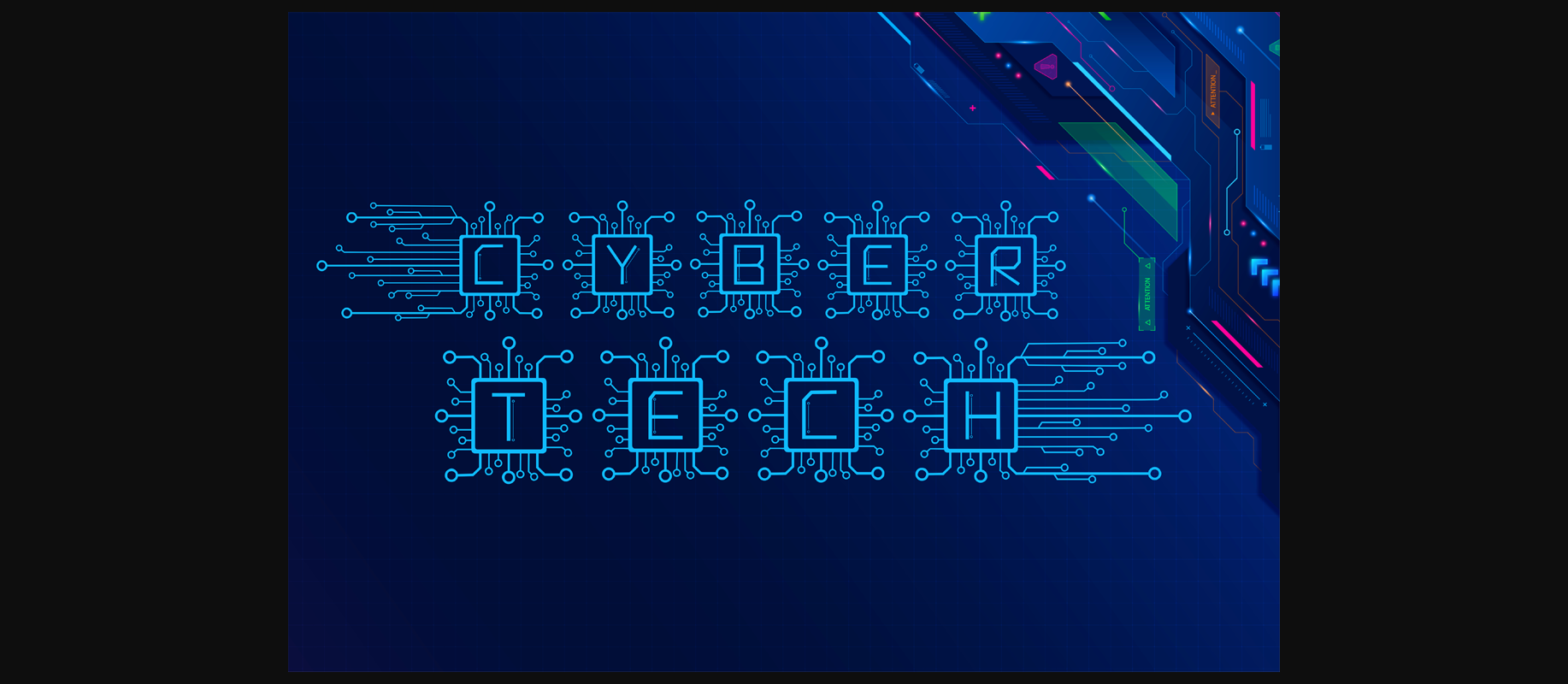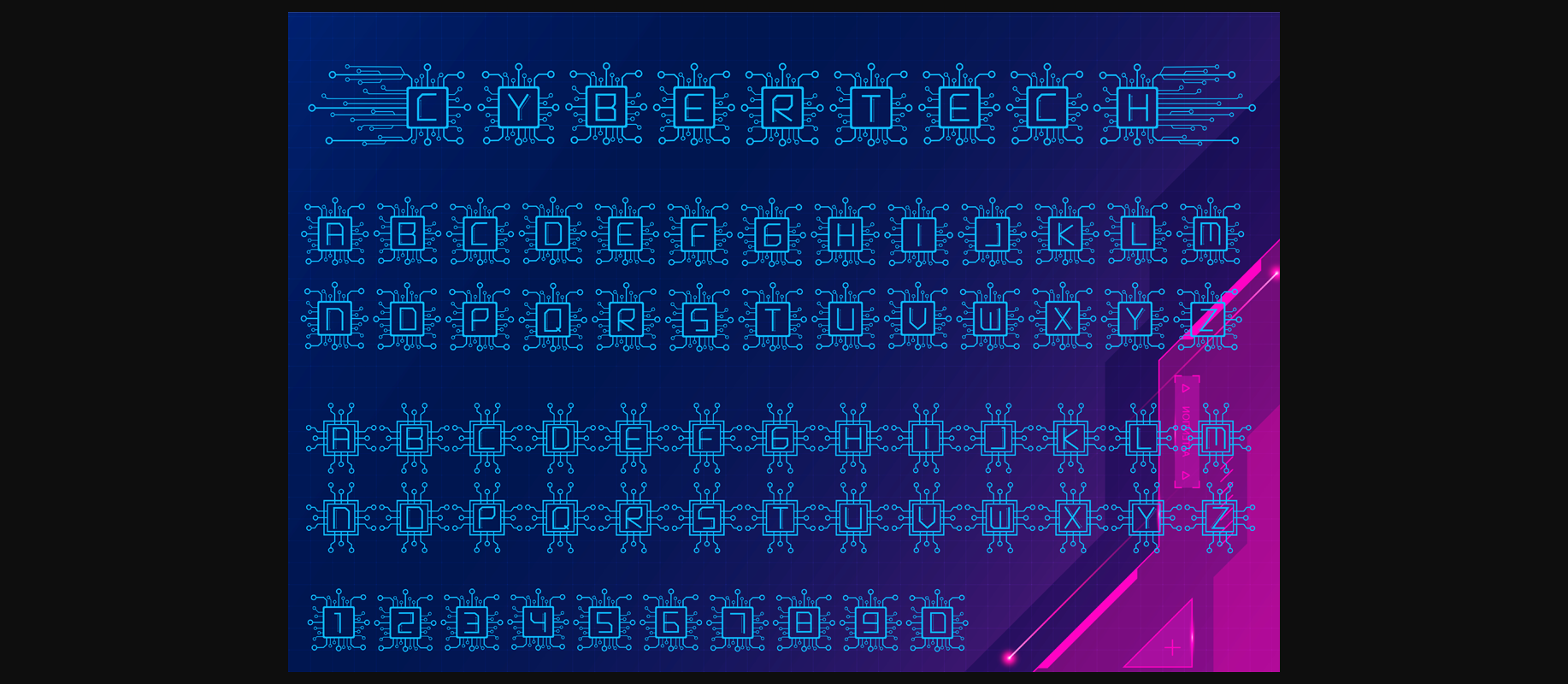
About Cyber Tech Font
Cyber Tech is a cool, techno and unique decorative font. This font is ideal for writing web designs, business cards, or pretty much anything else that requires a unique, modern touch.